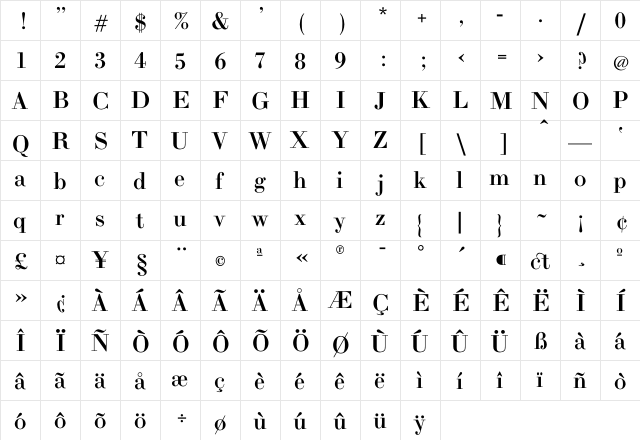
Bodoni BoldL
Design Context for Bodoni Typeface
Bodoni takes a measured approach to typography — its balanced proportions and neutral character make it a reliable workhorse for both digital and print work. Its bold stroke weight gives it real presence on the page.
Pro Tip: Use Bodoni in both headline and body roles to test its range before committing to a single application.